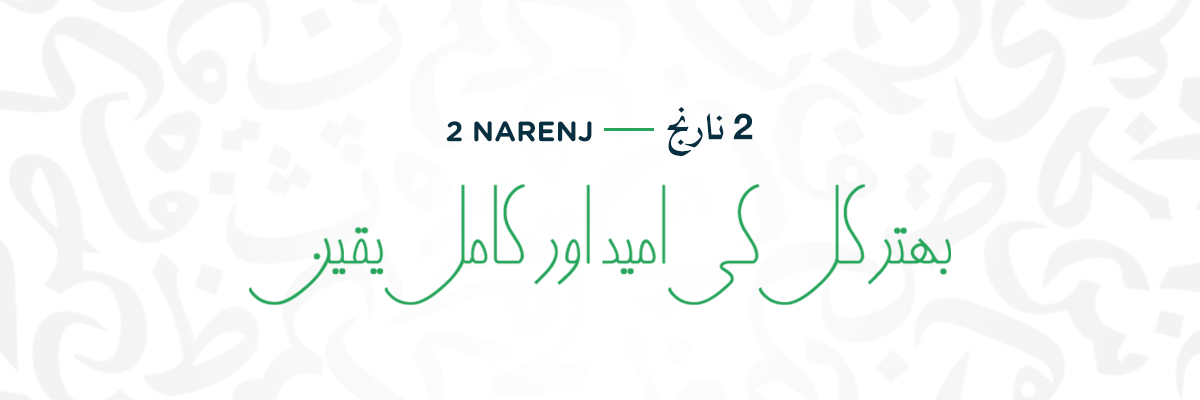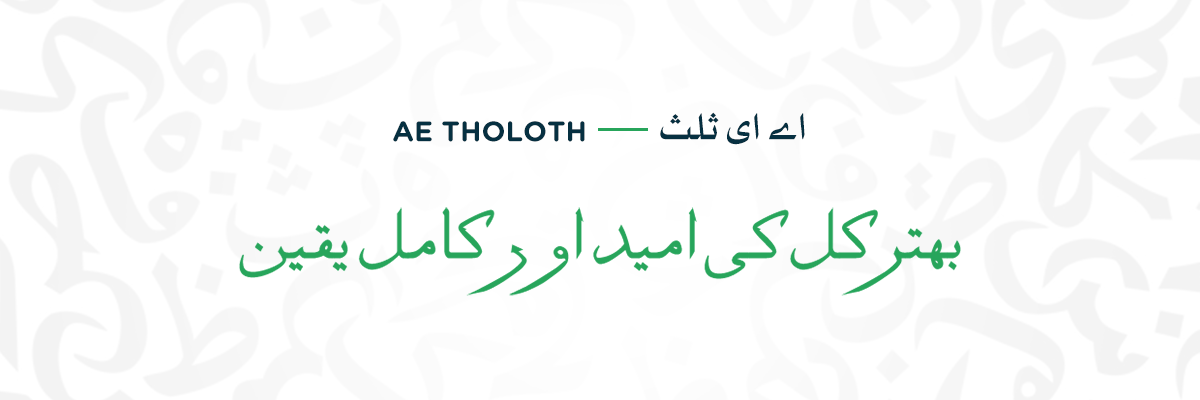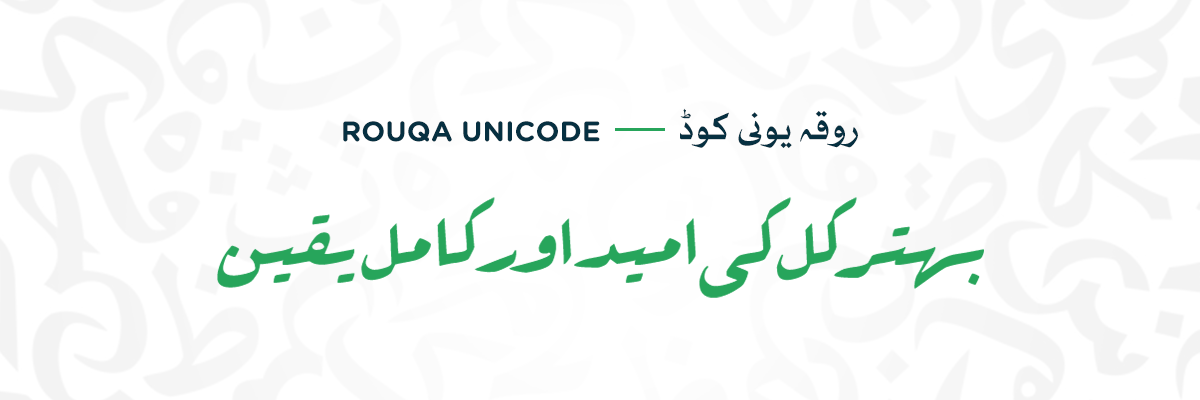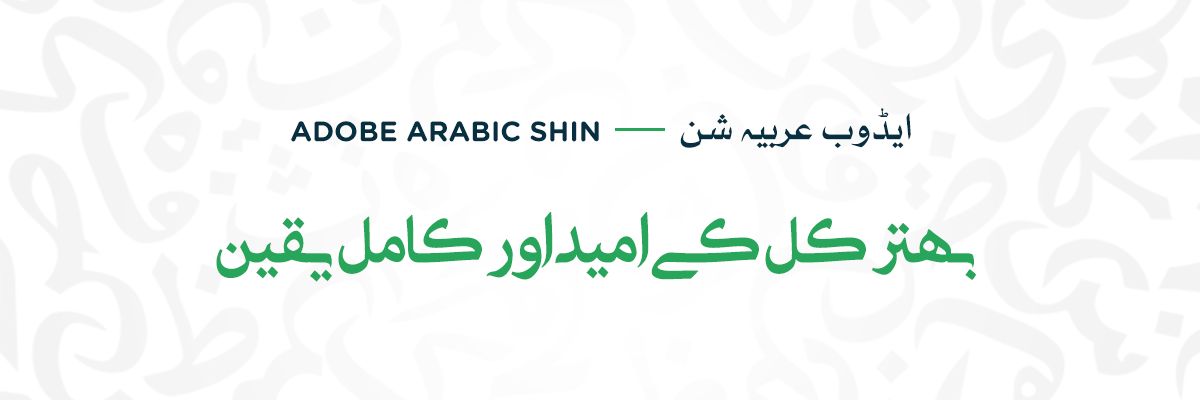
Urdu calligraphy fonts are a perfect way to add elegance and sophistication to your designs. Whether you are looking for an Urdu font to evoke a sense of refinement in your basic design or want to adorn your artwork with the sophistication of classical scripting techniques, here you’re going to find a font for your every need. Some of the most popular and elegant scripts include Ruqaa, Diwani, and Thuluth, along with the Kufic script. However, for the calligraphic effect, Sulus and Diwani are most used. Ruqaa fonts are known for their smooth, flowing, and condensed letters that connect together perfectly. Whereas, Diwani fonts are inspired by the Ottoman Empire. They have soft, rounded letters with lots of intricate details. Diwani fonts look luxurious and refined. Thuluth fonts have bold, expressive strokes that convey energy. The letters have sharp angles and straight lines with slight slant. Each of these Urdu calligraphy scripts has its own unique beauty. So, let us explore top artistic fonts based on these calligraphic techniques that will make your dull designs more artistry and elegant. Also, check out collection of 10 Best Nastaleeq Fonts that offers timeless elegance to your artworks and designs.
Here is a brief overview of the fonts we are going to present for your artistic needs. We have briefly mentioned their calligraphic influence and appearance for better understanding. Moreover, if you want to learn more about each font you can visit Urdufonts.com for their well-explained details and technical specifications. Each font here is hand-picked carefully to meet the various needs of designers. So, let’s have a look at these.
| No. | Name | Calligraphic Influence | Designer | Font Type |
|---|---|---|---|---|
| 1 | Diwani Letter | Diwani | Microsoft | Cursive, Decorative |
| 2 | Diwani Bent | Diwani | Microsoft | Cursive, highly Decorative and bent letters |
| 3 | Diwani Simple Striped | Diwani | Microsoft | Curly, Ornamental |
| 4 | UL Amjad Outline Regular | Diwani (Modern) | Urdu Life | Cursive, Stencil/hollow |
| 5 | Unikurd Xezal | Diwani | Kurd It Group | Cursive script, Decorative |
| 6 | Attari Sulus | Thuluth | Attari Qadri | Decorative, Qalam |
| 7 | A Thuluth | IrFonts.ir | Decorative |
| 8 | 2 Narenj | Thuluth | MrtSoft font foundry | Thin pencil font |
| 9 | Ae Tholoth | Thuluth | Alawi Hashim Bafageeh | Qalam writing with oblique descenders |
| 10 | Rouqa Unicode | Ruqaa | Syed Manzar Hasan Zaidi | Decorative |
| 11 | Adobe Arabic Shin (Stout Bold/Typo Bold) | Ruqaa | Adobe | Bold, Display |
| 12 | Arabic Poetry | Ruqaa | Zakariya Saleh | Decorative |
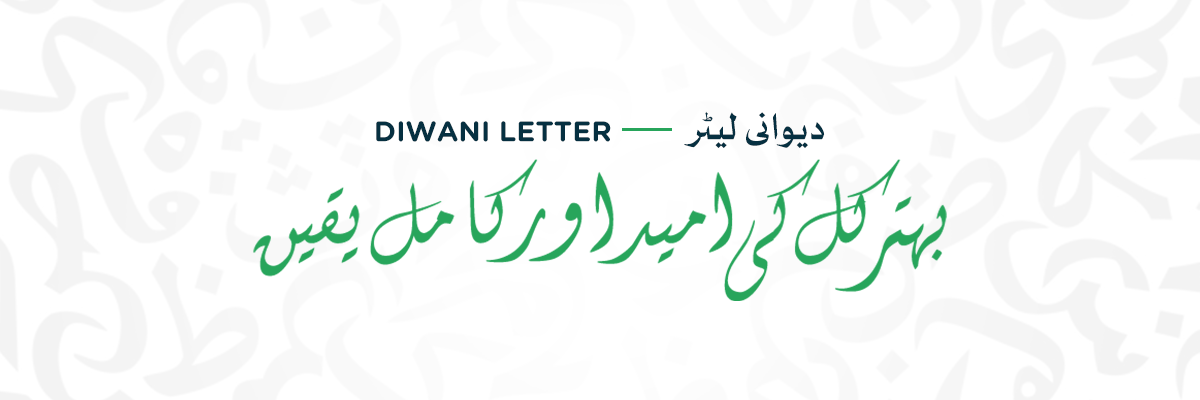
Diwani Letter is a cursive, flowing, and delicate Arabic font inspired by the traditional Diwani script but with a modern twist. It features elongated tails, delicate curly edges, varying thicknesses, and intricate designs that resemble calligraphy art. The font has a sharp contrast between thin strokes and the background, adding to its overall look and appeal. Diwani Letter is perfect for decorative purposes like branding, logos, and invitations due to its formal and intricate appearance. Its graceful curves and flowing strokes make it useful for calligraphy art and add elegance and sophistication to any project. Its elegant appearance can uplift the visual impact of any project, whether used in Quran writing, poetry, or other artistic endeavors.
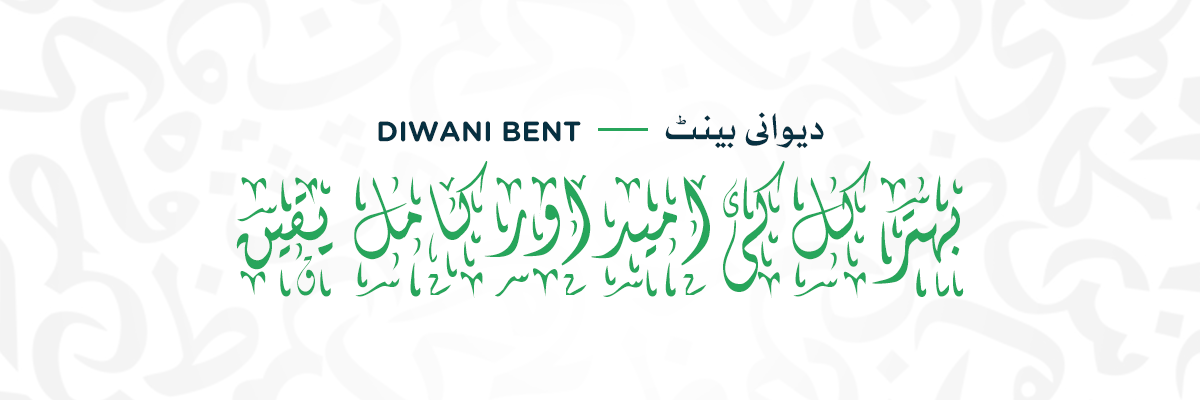
Diwani Bent is a cursive, decorative, and delicate Arabic font with bent and flowing letterforms. It draws inspiration from the traditional Diwani script but with a modern flair. It features contrasting thicknesses and intricate designs, just like traditional calligraphy. The font’s thickness varies, appearing dense toward curves and thinner towards terminals, lending it a dynamic and expressive quality. Its formal and visually striking appearance, characterized by elongated ascenders and descenders, intricate loops, curls, and flourishes, makes it ideal for decorative purposes such as branding, logos, invitations, and gift cards. Moreover, look into our handpicked collect of Party Urdu Fonts, to make decorative designs.
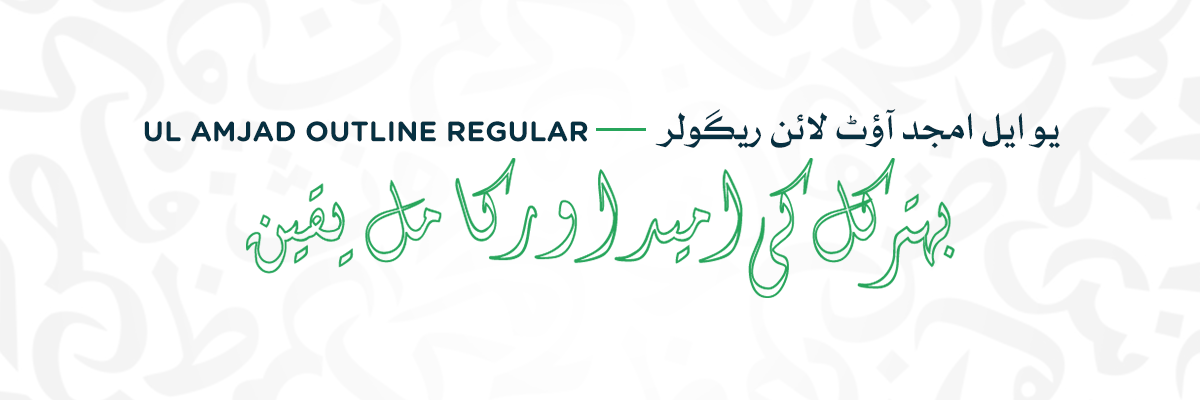
UL Amjad Outline Regular is a modern hollow or stencil font inspired by the traditional Diwani script. It offers flowing letterforms with thin cursive terminals and is suitable for short-text applications like branding, advertising, logos, and creative posters. However, if you are looking for a striking font for your calligraphy artwork, this typeface is a perfect fit for it. Its delicate strokes and hollow interior adds to its unique appearance, making it ideal for designs where visual impact is crucial.
Unikurd Xezal is a cursive decorative Kurdish font characterized by contrasting thick and thin letterforms with delicate pointy edges. It displays the elegance of calligraphy with its beautifully designed flourishes. Its moderate thickness and delicate strokes ensure high legibility and aesthetic appeal. However, due to its intricate appearance, it is suitable for short text applications like branding, calligraphy, logos, Quran writing, invitations, and more.
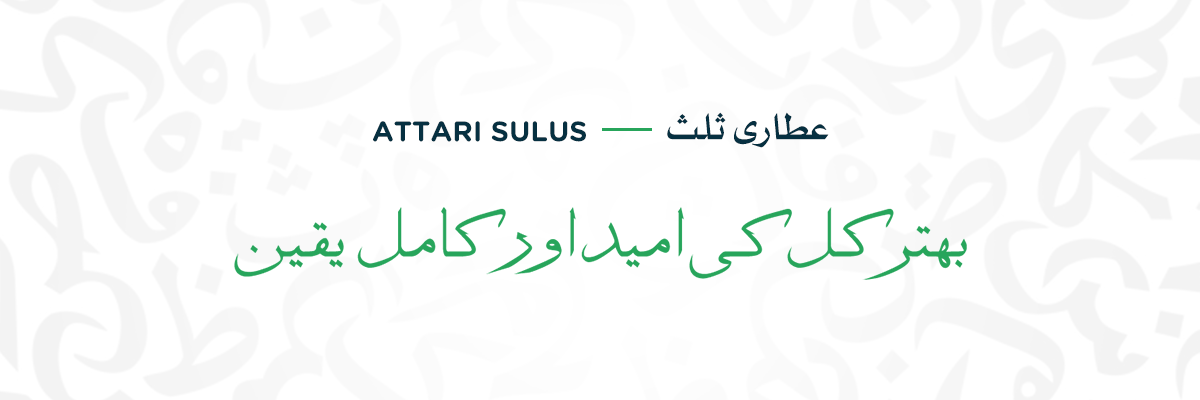
Attari Sulus is a decorative Qalam writing font inspired by the elegant Thuluth script. It features sharp angles and long, pointy edges and displays refinement and clarity. The slanted element in the descenders adds more to its appeal. The font is available in two weights, giving you the flexibility to use it according to your design needs. Its strong stroke and varying thickness contribute to its visual impact, although readability may be compromised at smaller sizes. It is ideal for logos, branding, calligraphy, Quran writing, book covers, and more.
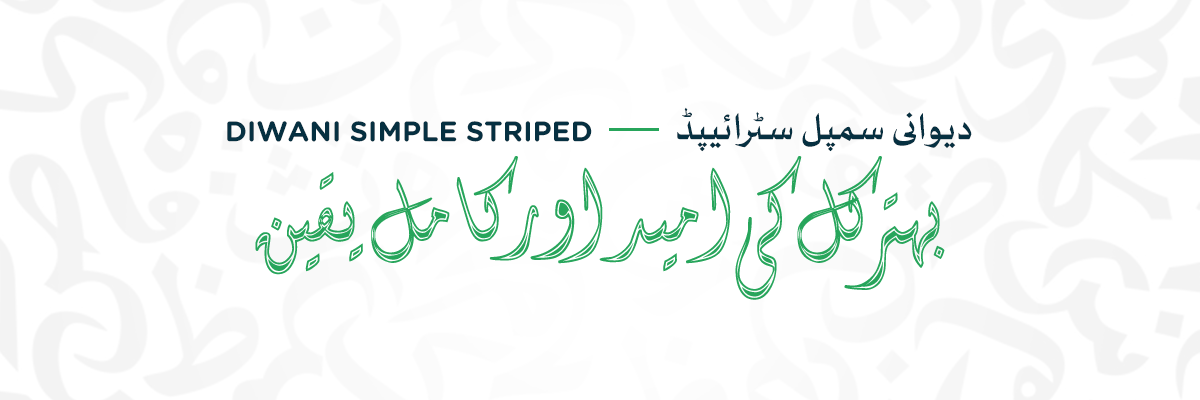
Diwani Simple Striped, a cursive and decorative Arabic font by Microsoft, features long-flowing curly terminals and striped letters for a unique look. There are gaps inside the letters, which makes it unique from the other calligraphic fonts here. It is perfect for displaying your message in a more eye-catching and appealing way. This font is not only visually attractive but practical as well and can be used with several design platforms. If you like this, check out best 3D Urdu Fonts and create captivating designs.